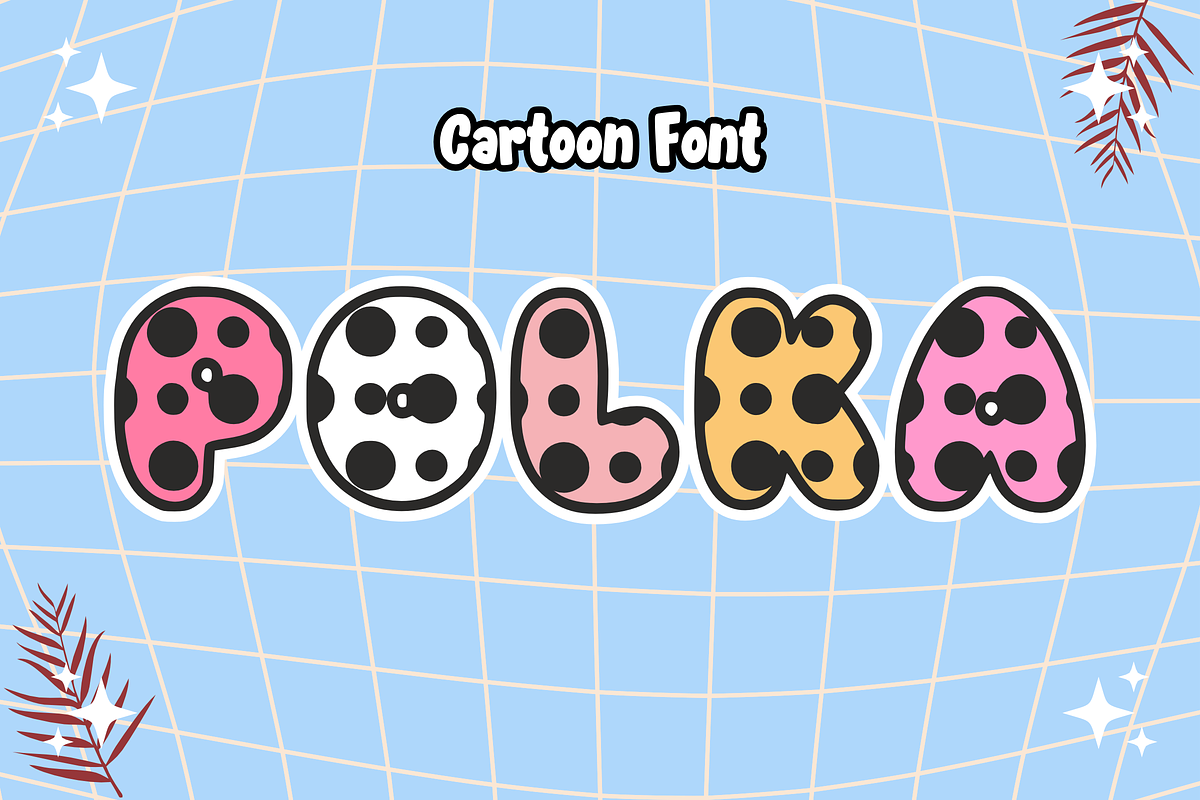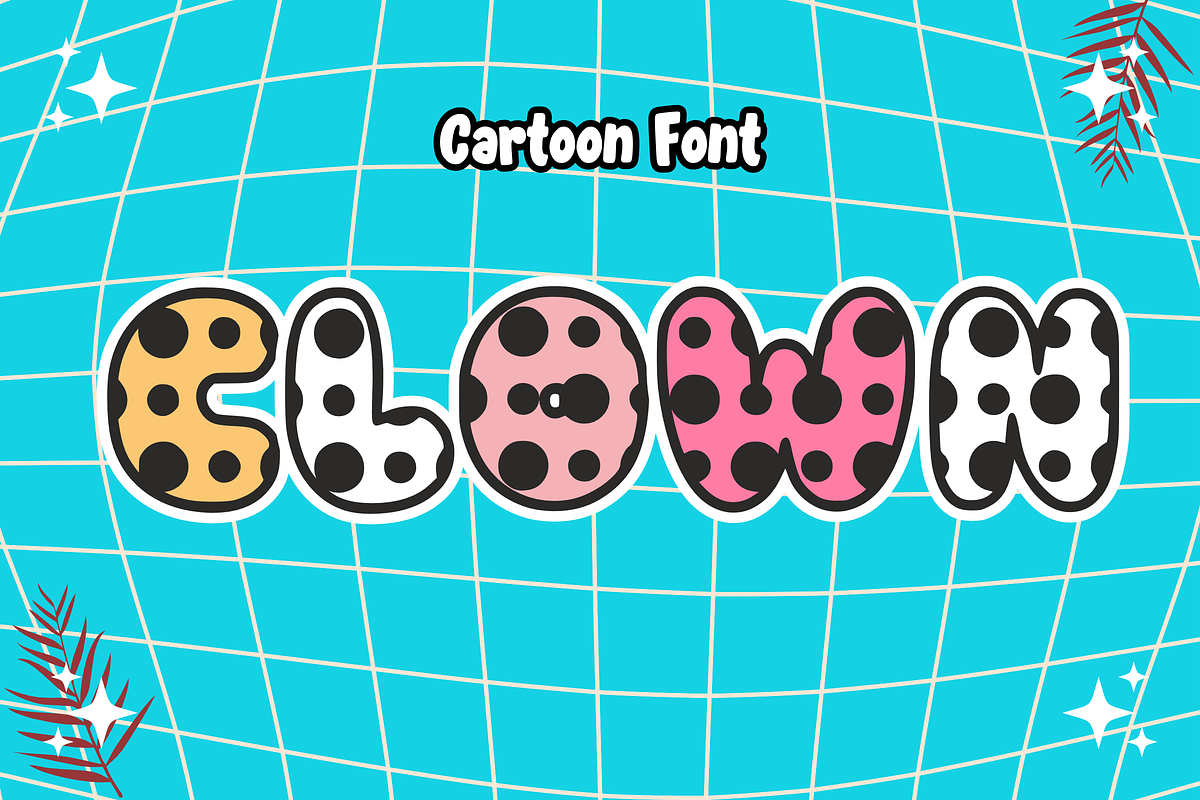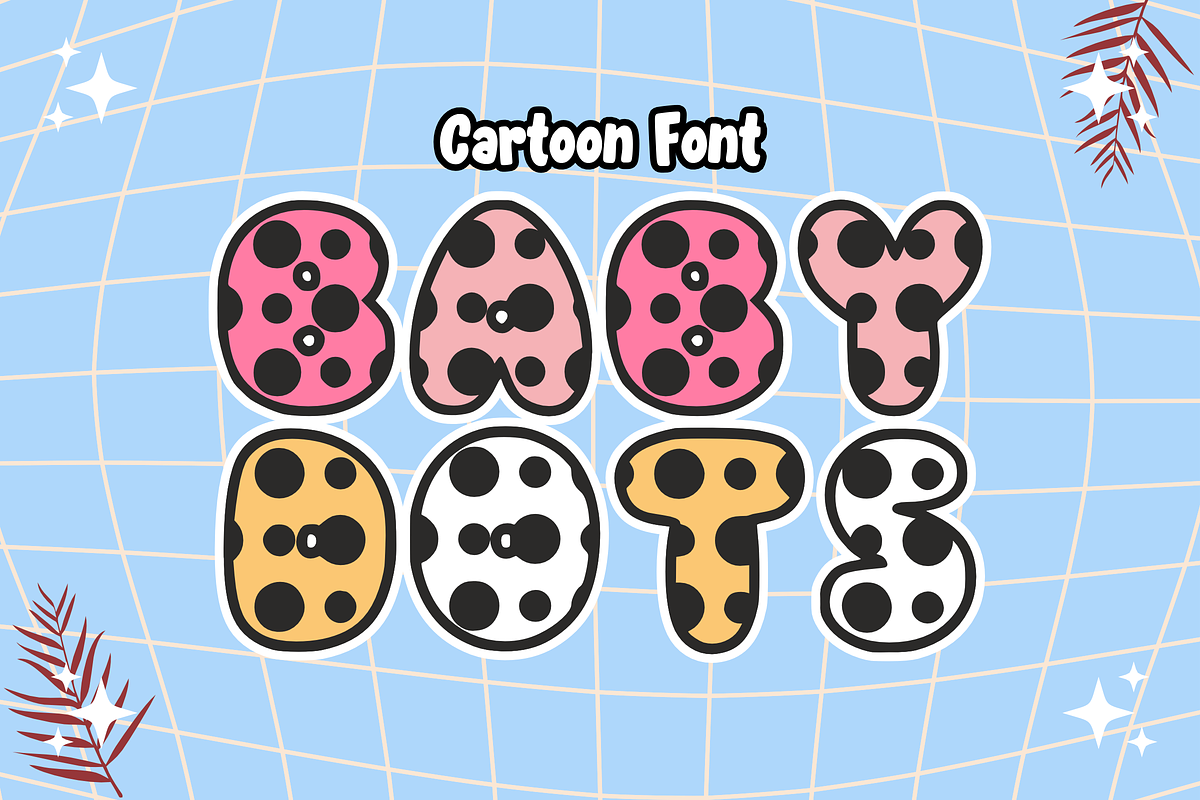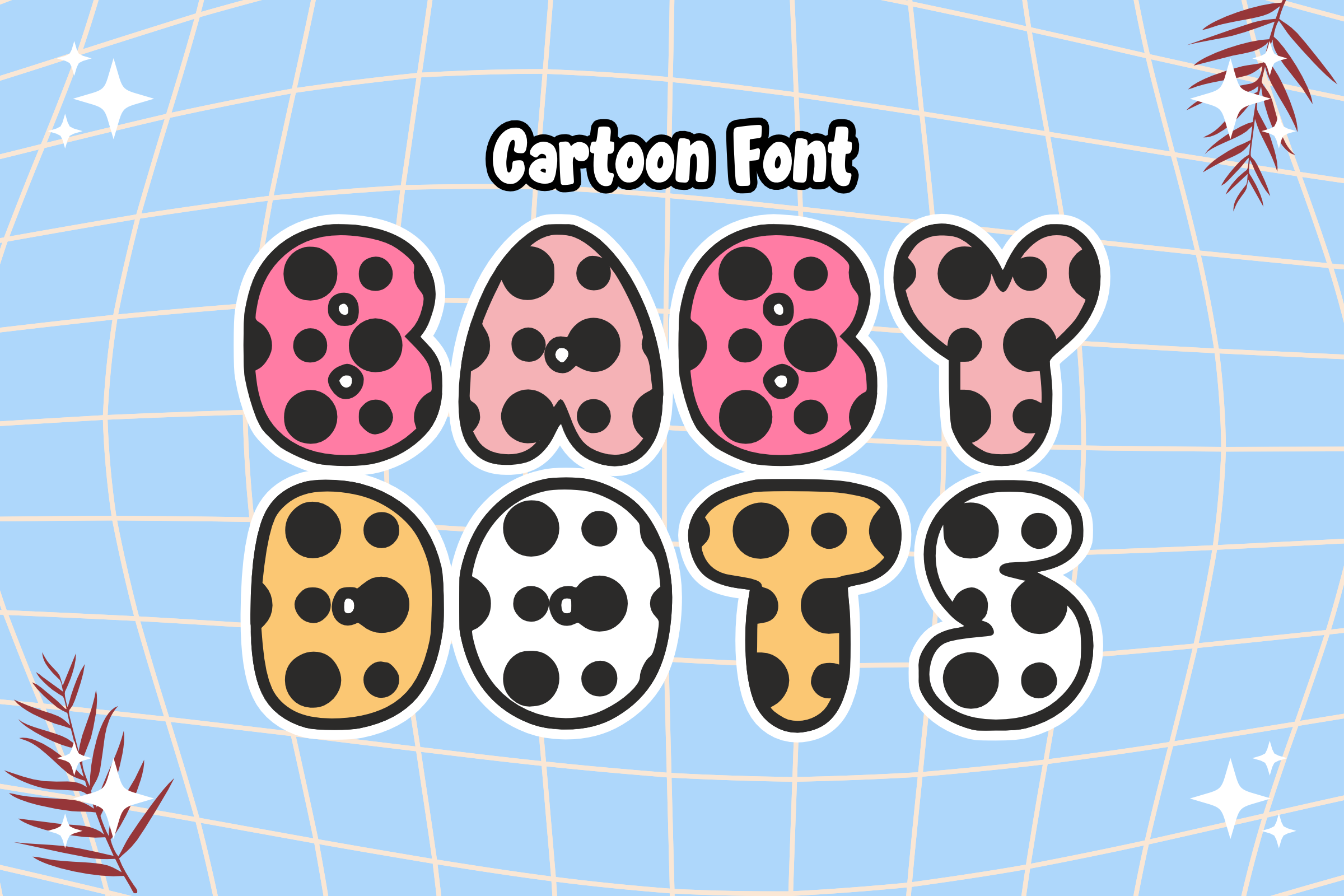
Baby Dots - Cartoon Font Types
Introducing “Baby Dots” is a cheerful baby font with polka dot style, each character is polka dotted so it is easy to recognize. Perfect for sublimation design of t-shirts, mugs, tote bags, animations, comic titles, and more. Pour your imagination here.! and keep supporting our store by liking and following, so we are excited to create other new and unique fonts, Thank you!